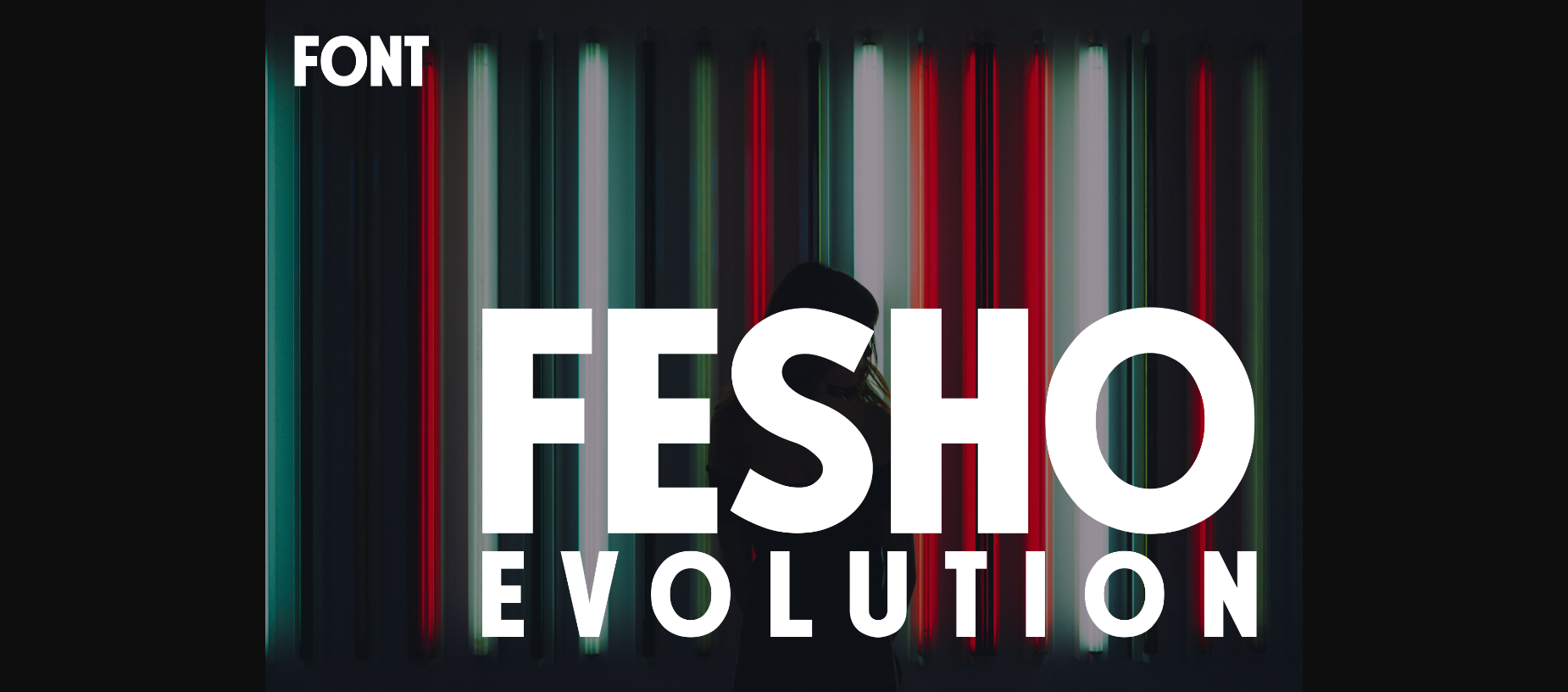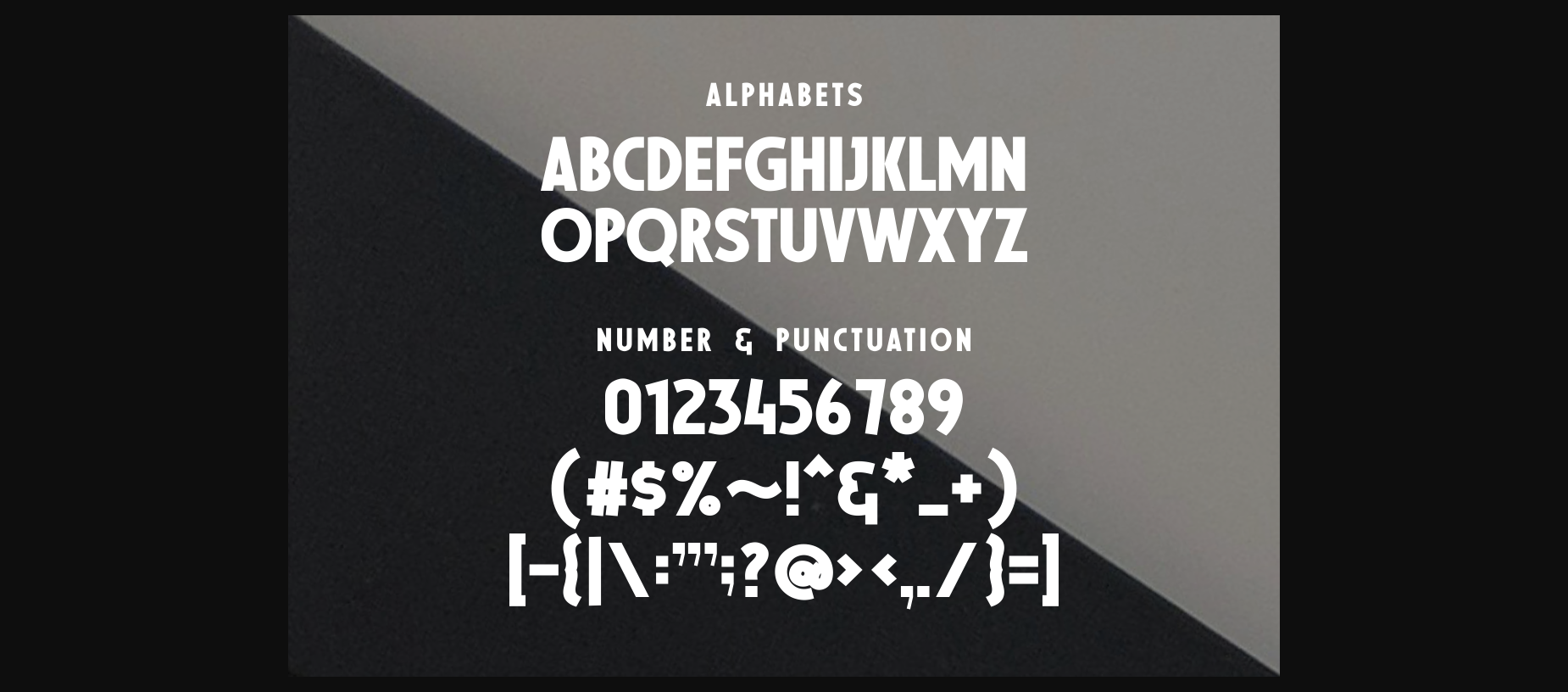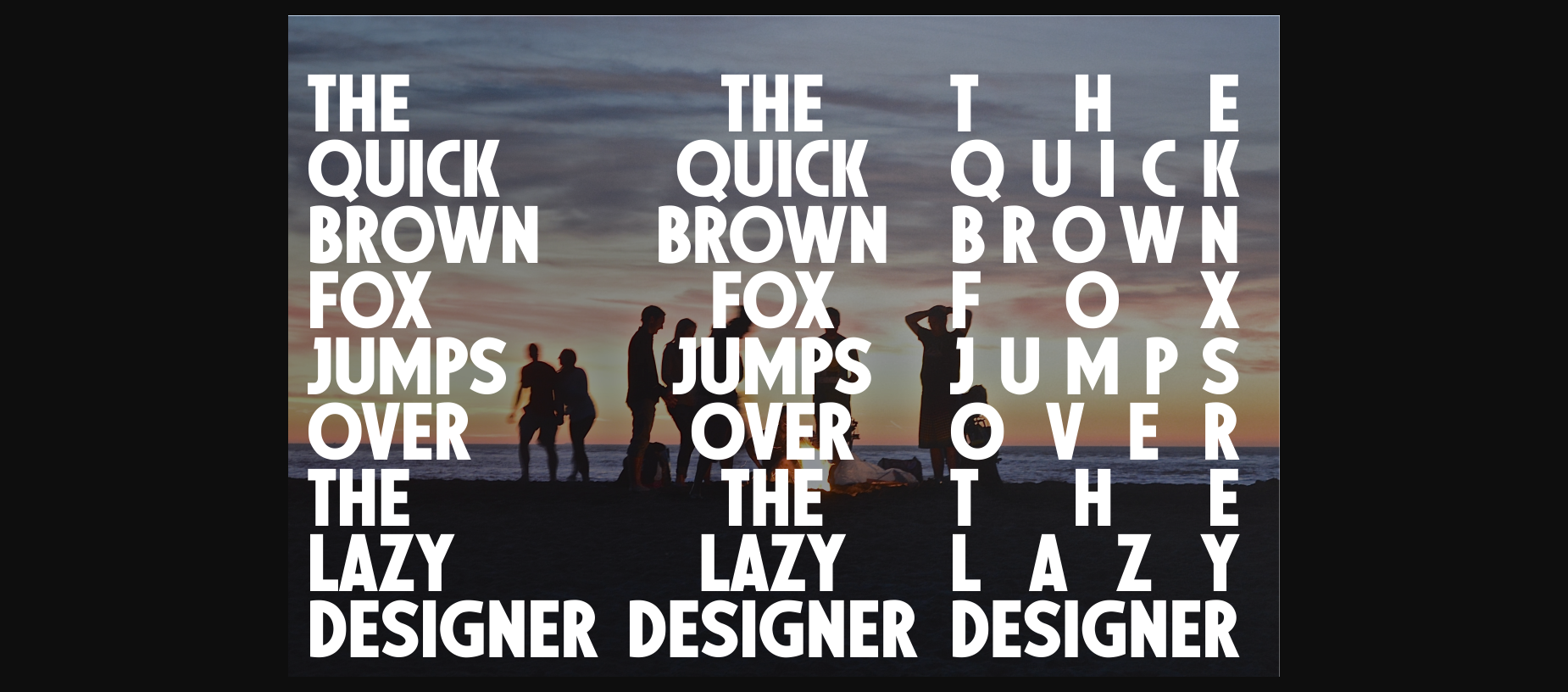
About Fesho Evolution Font
Introducing Fesho, a stunningly robust font designed to command attention. Its bold and immense strokes cry out from posters, leaving an indelible impression. With unrelenting firmness, Fesho boldly graces billboards, embodying a fusion of grit and grace, making it a force to reckon with in the world of typography.